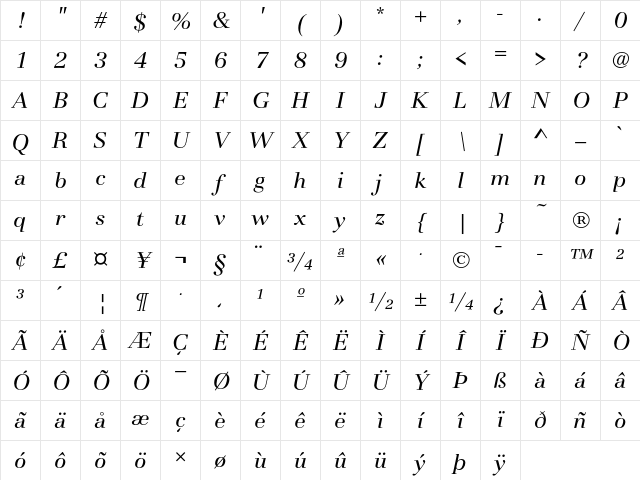
Basilia T Regular Italic
Design Context for Basilia T
Basilia T is a composed and adaptable typeface that performs quietly and consistently across a wide range of design contexts. The slanted form adds forward momentum and visual energy.
Pro Tip: Use Basilia T for emphasis, pull quotes, and subheadings where its slanted energy can add rhythm to the layout.